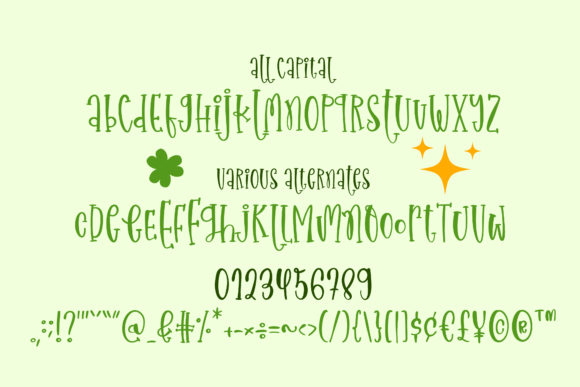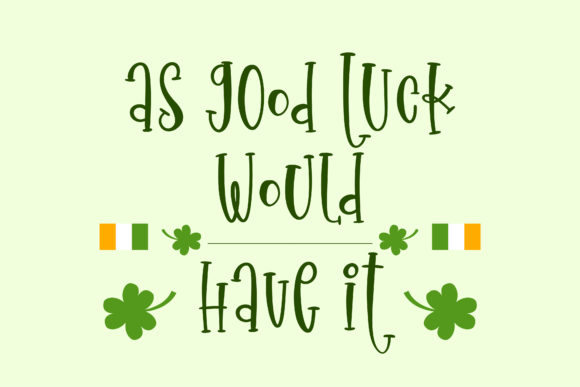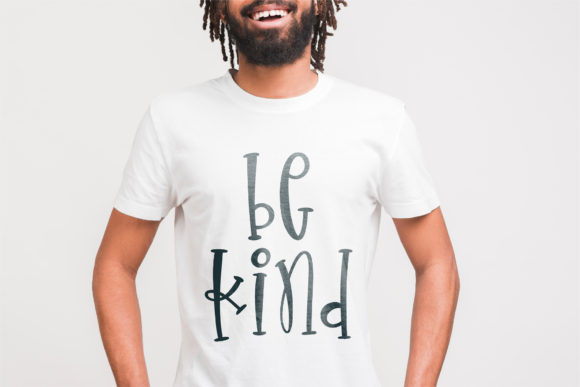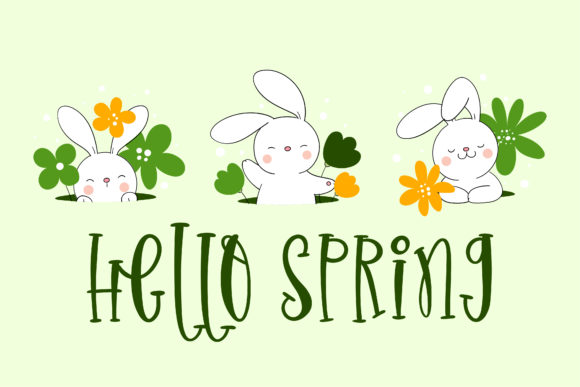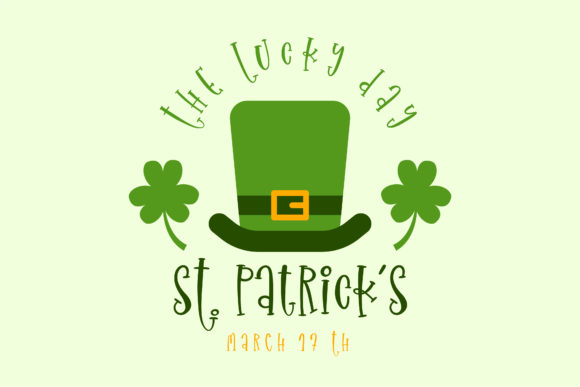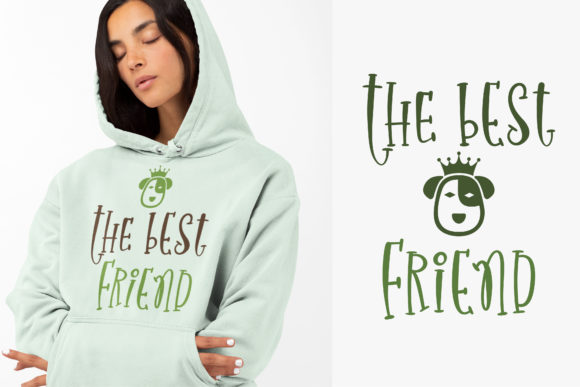
Happy St.Patrick’s Day Font: Add a Touch of Whimsy to Your Designs
Are you looking for a unique and playful font to add a touch of magic to your designs? Look no further than the Happy St.Patrick’s Day font! This delightful script font is perfect for designers and crafters who want to infuse their work with a little bit of quirkiness and charm.
A Unique and Interesting Script Font
Happy St.Patrick’s Day is a one-of-a-kind script font that is sure to capture the attention of your audience. Its quirky and whimsical design makes it perfect for a wide range of contexts, from festive St. Patrick’s Day designs to everyday projects that need a touch of personality.
Whether you’re designing a greeting card, a poster, or a digital graphic, this font is sure to add a dash of fun and playfulness to your work. Its unique design elements and swashes make it a versatile font that can be used in a variety of creative projects.
One of the best things about the Happy St.Patrick’s Day font is that it’s PUA (Private Use Area) encoded. This means that you can access all of the glyphs and swashes with ease, giving you even more creative freedom to customize your designs.
With PUA encoding, you can easily access the font’s built-in features, such as ligatures, stylistic alternates, and swashes. This makes it easy to add a personal touch to your designs and create unique and eye-catching graphics.
The Happy St.Patrick’s Day font is a dream come true for designers and crafters who love to work with unique and creative typography. Whether you’re a professional designer or a hobbyist crafter, this font is sure to inspire you to create something special.
Use it to create stunning digital graphics, such as social media posts, blog headers, and email newsletters. Or, use it to create beautiful physical crafts, such as handmade cards, scrapbook pages, and DIY decorations.
Tips for Using the Happy St.Patrick’s Day Font
Here are a few tips for getting the most out of the Happy St.Patrick’s Day font:
- Experiment with different font sizes and colors to add visual interest to your designs.
- Use the font’s built-in swashes and glyphs to add a personal touch to your designs.
- Pair the font with other complementary fonts to create a unique and eye-catching typography combination.
- Don’t be afraid to get creative and try new things – the Happy St.Patrick’s Day font is all about having fun and adding a touch of whimsy to your designs!
The Happy St.Patrick’s Day font is a unique and interesting script font that’s perfect for designers and crafters who want to add a touch of quirkiness and charm to their work. With its PUA encoding and built-in swashes and glyphs, this font is easy to use and customize.
Whether you’re designing a festive St. Patrick’s Day graphic or just want to add a little bit of personality to your everyday projects, the Happy St.Patrick’s Day font is a great choice. So why not give it a try and see what kind of creative magic you can create?